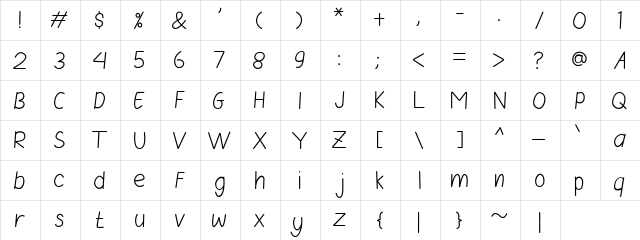
Ageng Sans Regular
| Foundry | Ageng Jatmiko |
| Designer | Ageng Jatmiko |
Design Context for Ageng Sans Typeface
Ageng Sans offers clean, dependable letterforms without strong stylistic allegiance, making it a practical choice for designers who need flexibility.